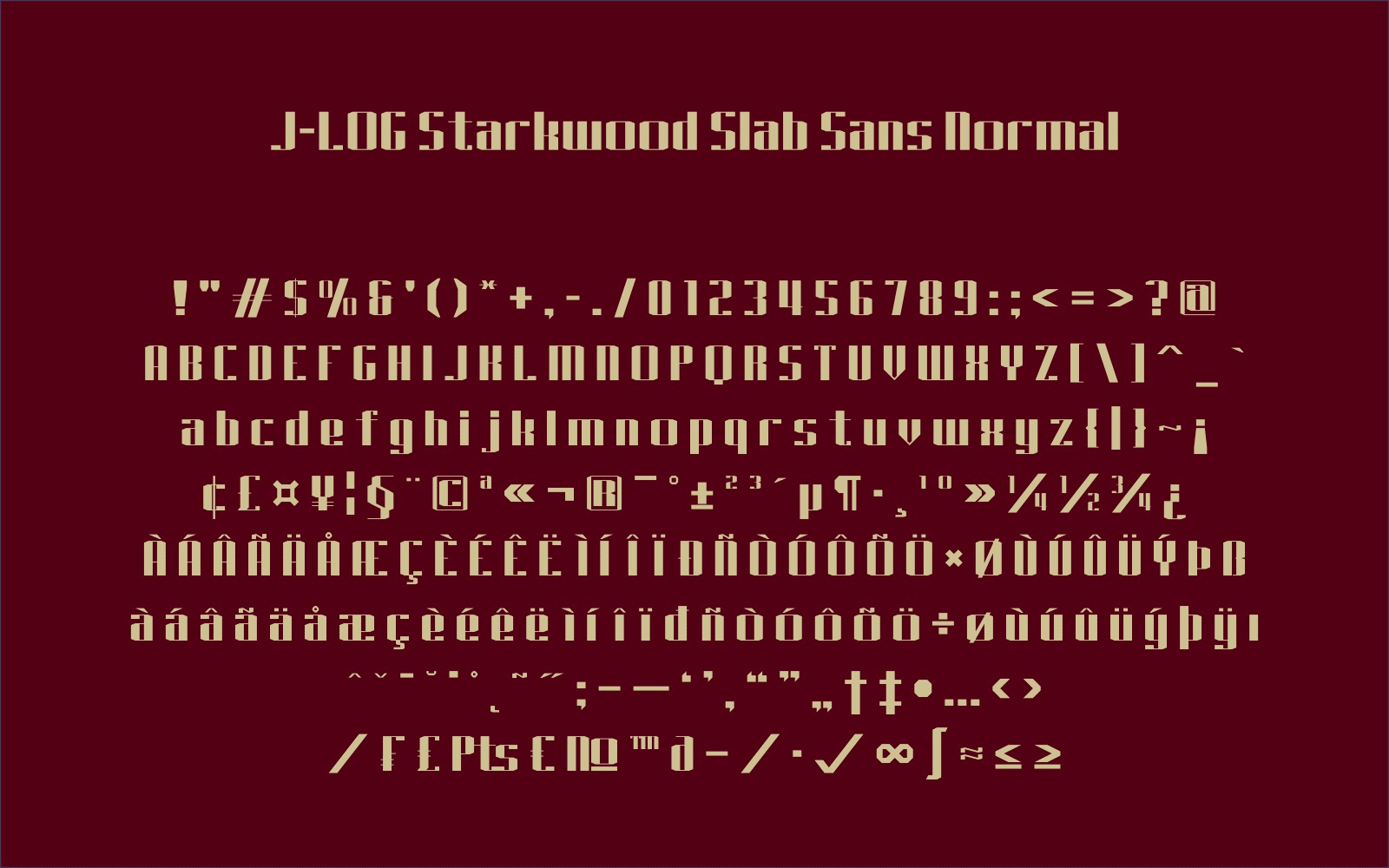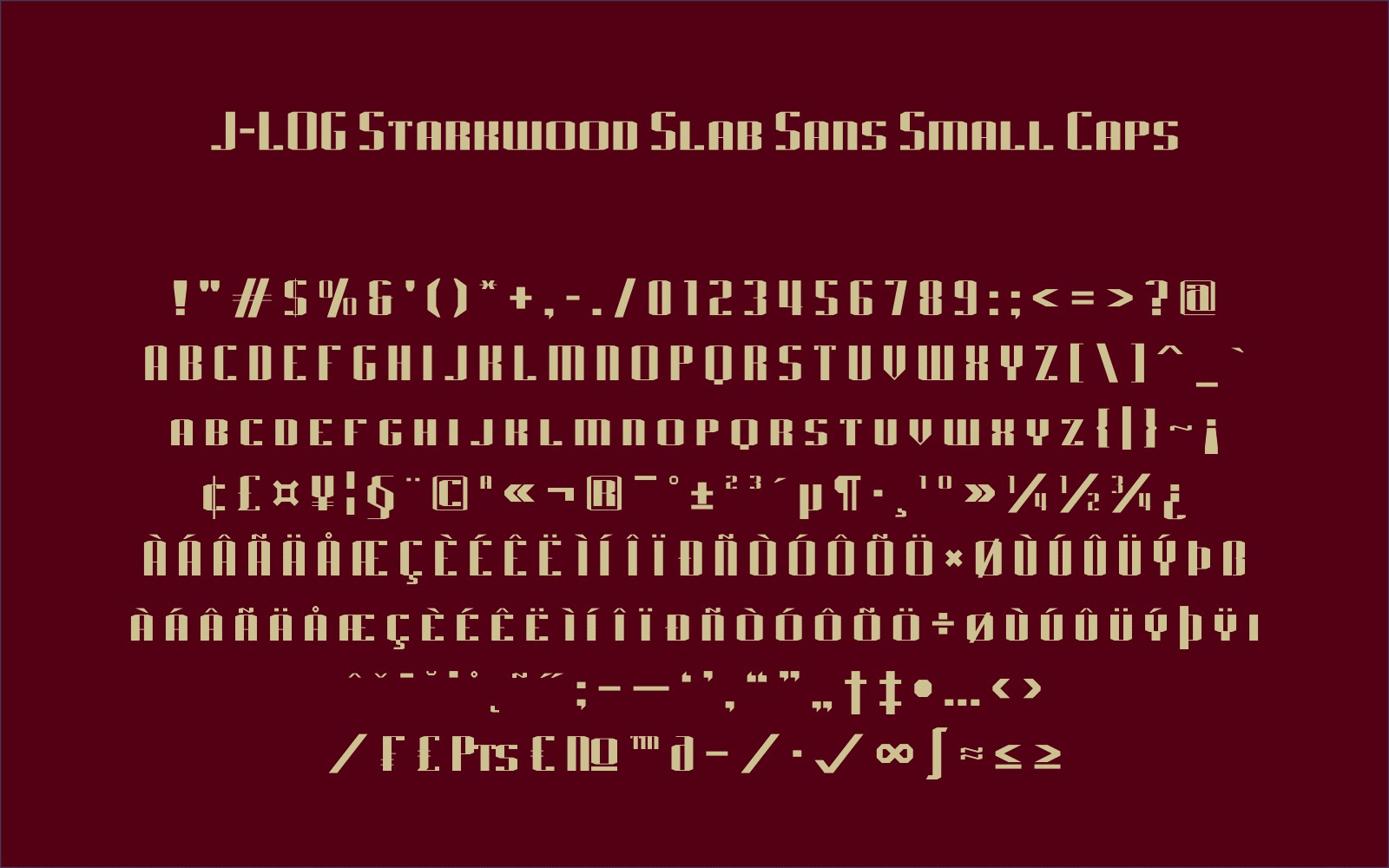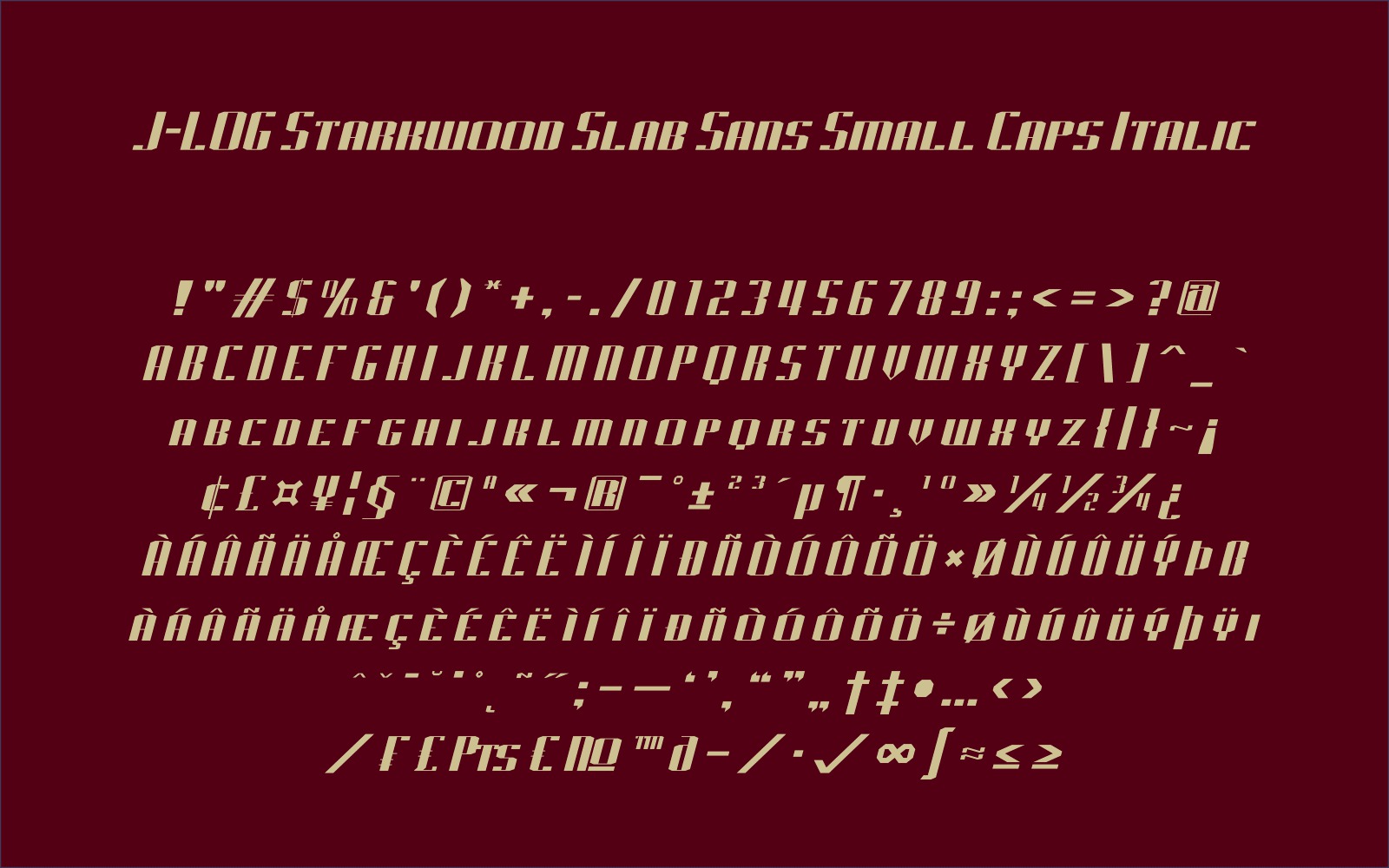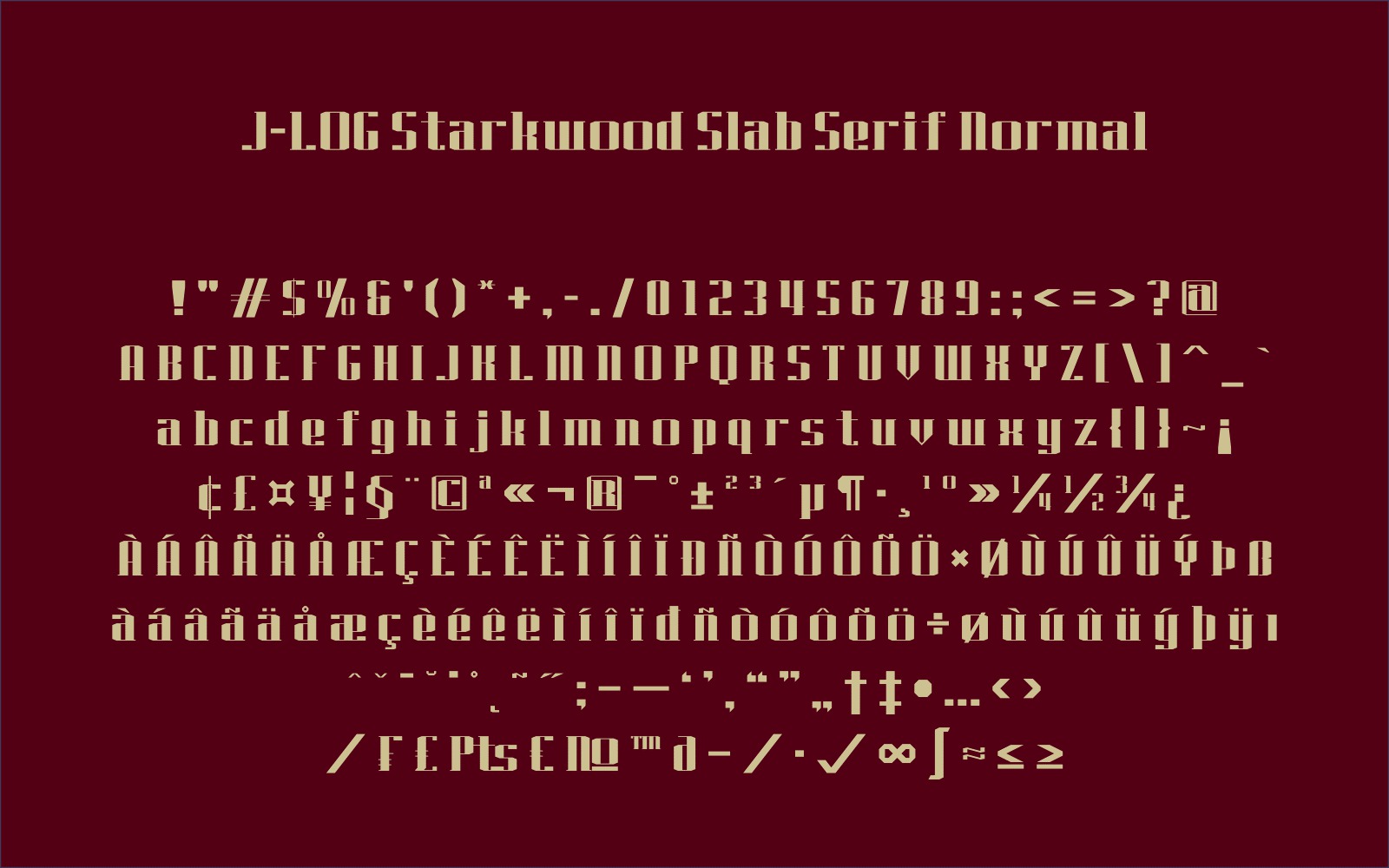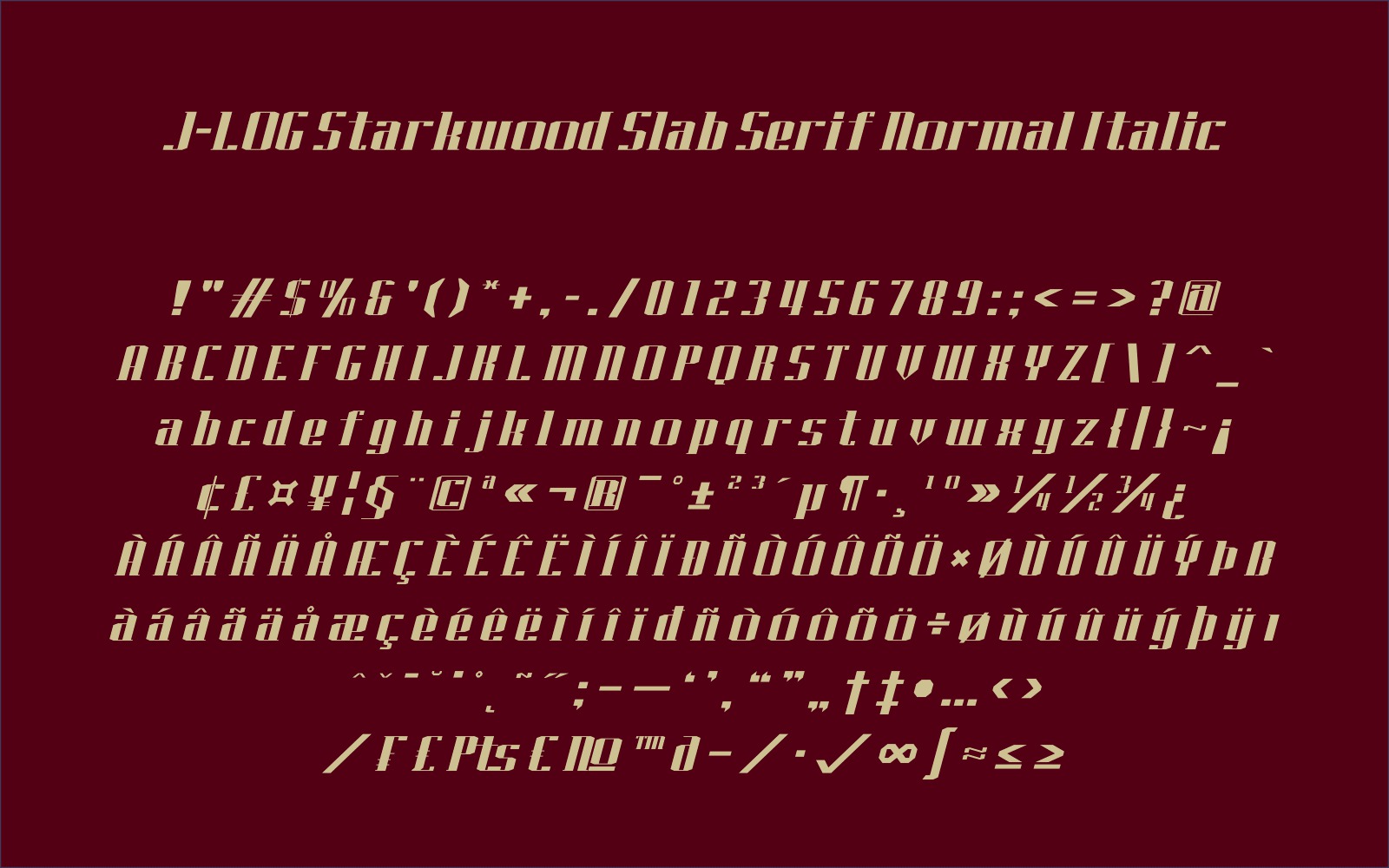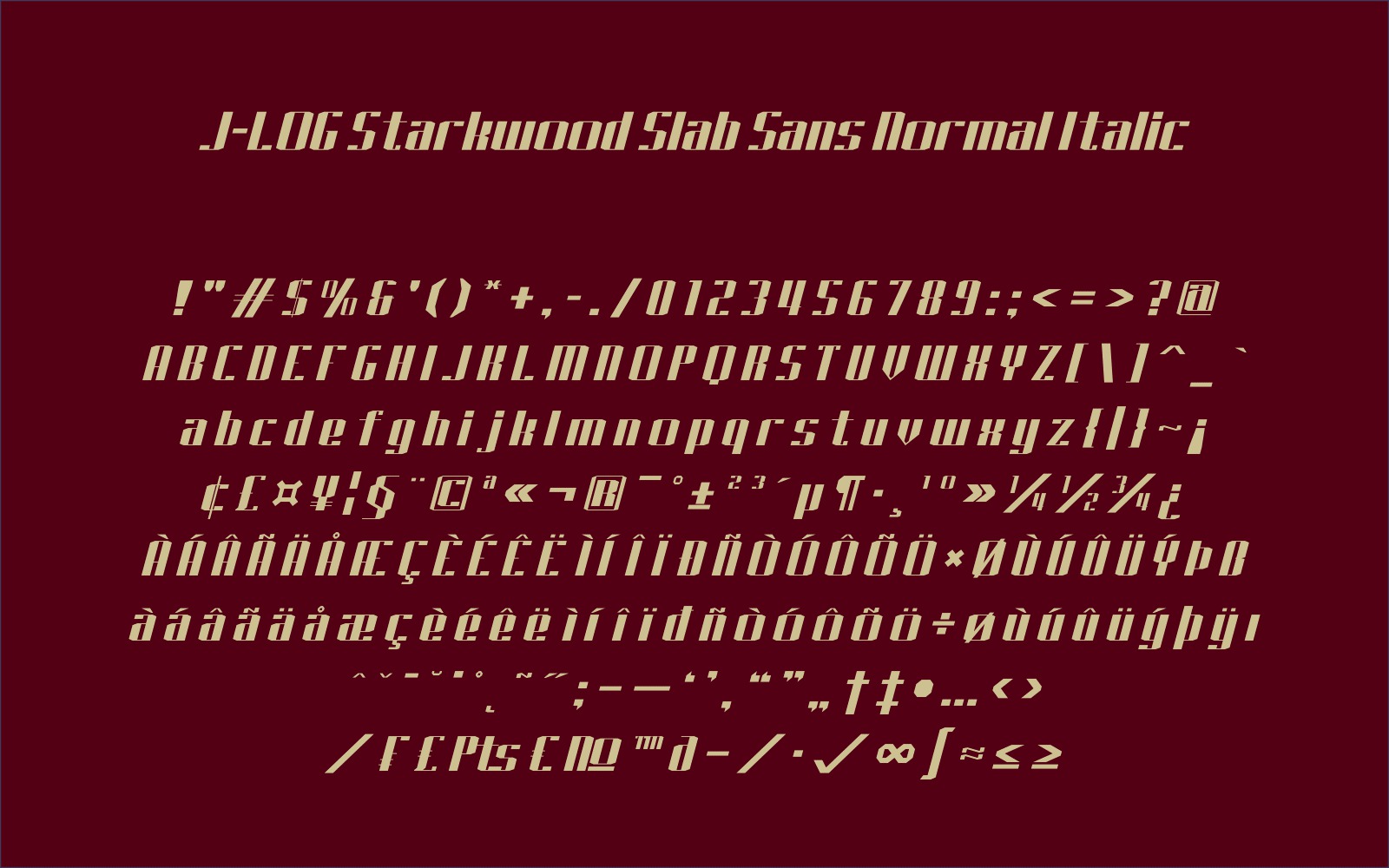
J-LOG Starkwood Slab Font
J-LOG Starkwood Slab: A Bold and Versatile Slab Serif Font Family
The J-LOG Starkwood Slab is a robust slab serif font family that offers designers a powerful tool for creating impactful typography. This font family combines the strength of traditional slab serifs with a modern twist, making it suitable for a wide range of design projects.
Key Features of J-LOG Starkwood Slab
• Font Family: As a complete font family, J-LOG Starkwood Slab likely includes multiple weights and styles for versatile use.
• Bold Appearance: Like other slab serifs such as Tecnica Slab Family, it features strong, blocky serifs that command attention.
• Versatile Application: Suitable for various design needs, from headlines to branding projects.
Ideal Uses for J-LOG Starkwood Slab
J-LOG Starkwood Slab is particularly well-suited for:
• Bold headlines and titles in print and digital media
• Logo design and branding projects requiring a strong typographic presence
• Editorial layouts where a mix of traditional and modern aesthetics is desired
• Signage and display typography that needs to make a statement
Comparison with Other Slab Serif Fonts
While J-LOG Starkwood Slab shares the bold characteristics of other slab serifs like Osgood Slab, it likely has its own unique personality. Its family approach may offer more flexibility than single-weight slab serifs such as Rifleman.
When using J-LOG Starkwood Slab in your designs, consider the following tips:
• Utilize different weights within the family to create hierarchy and contrast in your layouts
• Pair with sans-serif fonts for a balanced and modern look
• Use for short text blocks or headlines to maximize impact
• Consider using it in projects where you want to evoke a sense of strength and reliability
J-LOG Starkwood Slab is an excellent choice for designers looking to add a bold, contemporary slab serif to their typographic toolkit. Its family approach provides the flexibility needed for complex design projects, while its strong slab serif characteristics ensure it will make an impact in any application.
Whether you’re working on logo designs, editorial layouts, or creating striking website headers, J-LOG Starkwood Slab offers the perfect blend of traditional slab serif strength and modern design sensibility.